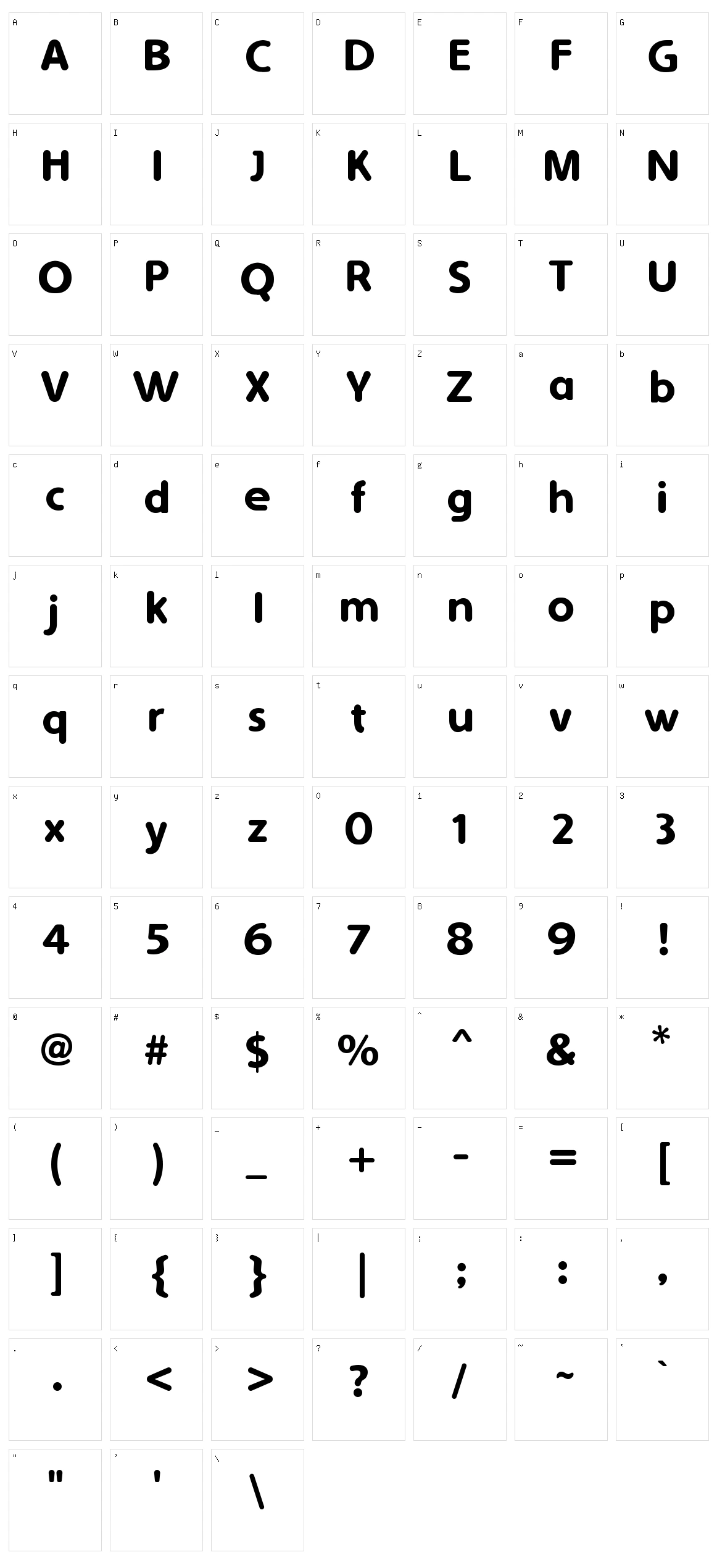
The free font Simply Rounded is carefully designed by Galdino Otten Fonts, showcasing a thoughtful balance of creativity and usability and falls under the Sans serif font style. When you download the ZIP file, it contains only 96.31 KB of font files, making it lightweight and quick to download. Please review the license details below to understand permitted usage and distribution rights. If license information is not available, we recommend using this font for personal projects only or contacting the author directly for commercial usage permissions.